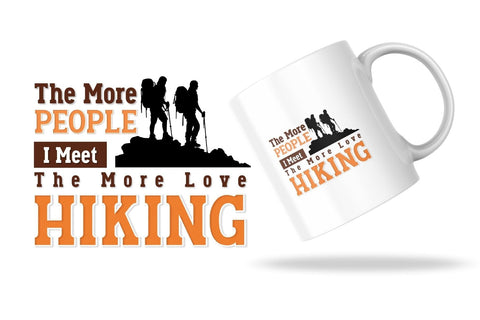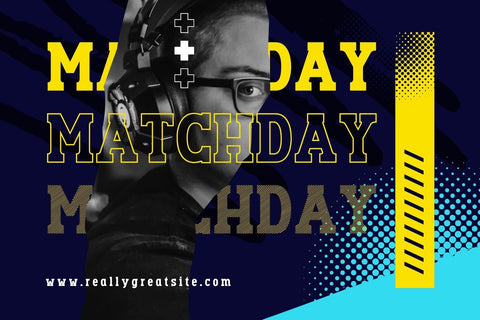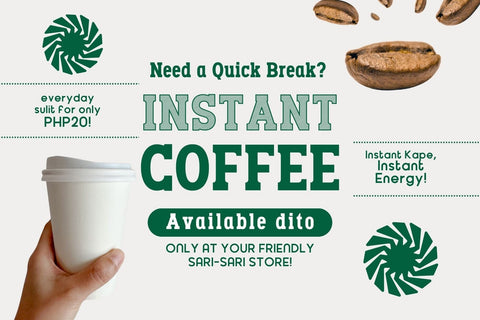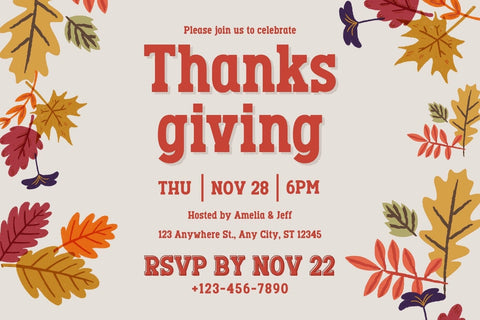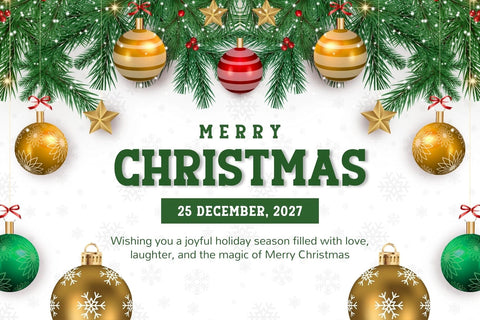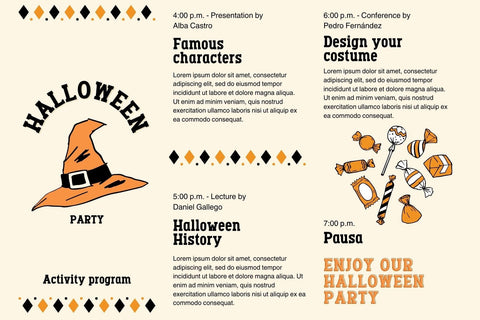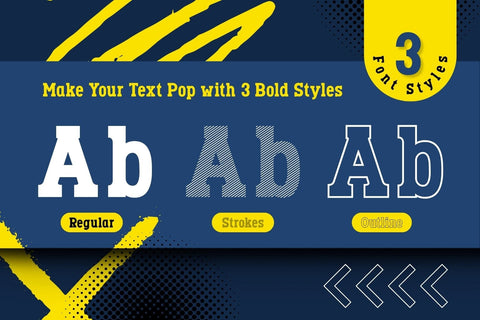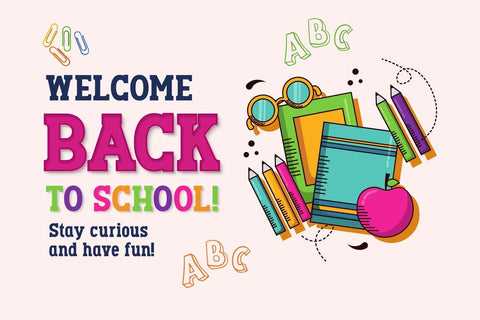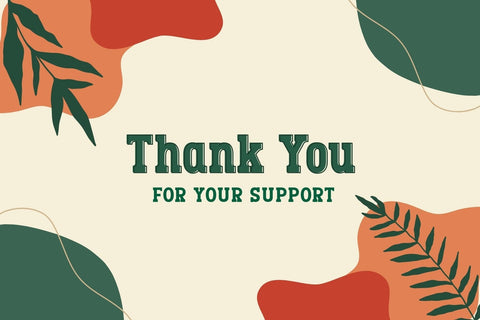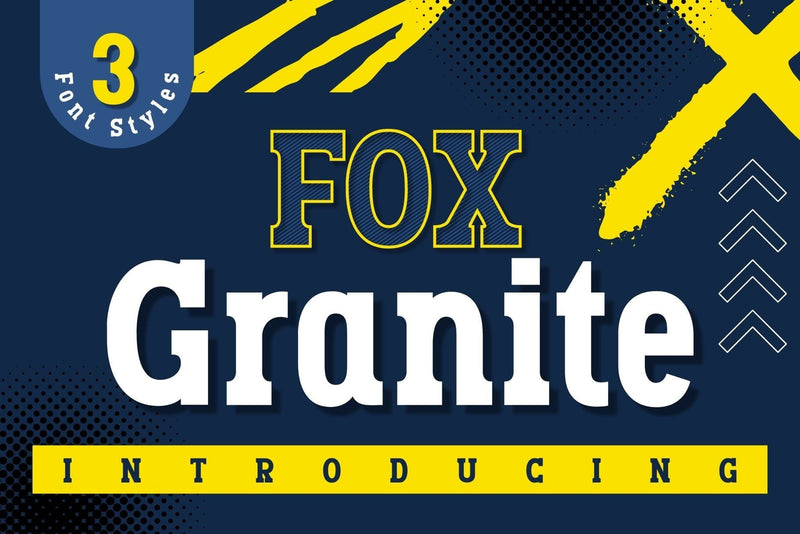
Fox Swirly: 3 Font Styles
Meet Fox Granite – a bold and versatile display font designed to make your text stand out with strength and style. Inspired by solid shapes and modern sports lettering, this font comes with 3 striking styles: Regular, Strokes, and Outline. Whether you want to create powerful headlines, sporty posters, or energetic branding, Fox Granite is here to give your project a confident impact.
With its clean curves and dynamic personality, Fox Granite works perfectly for:
ꕤ Sports and team logos
ꕤ Posters and flyers
ꕤ Bold product packaging
ꕤ Urban and modern branding
ꕤ Eye-catching social media graphics